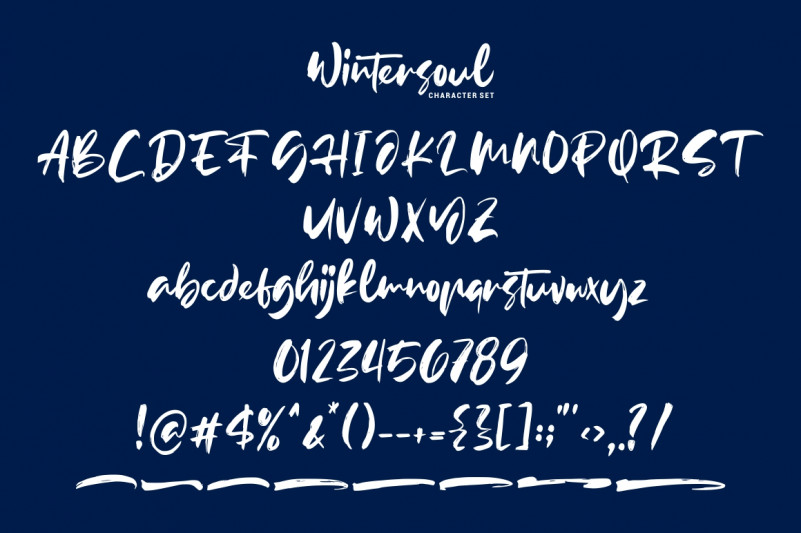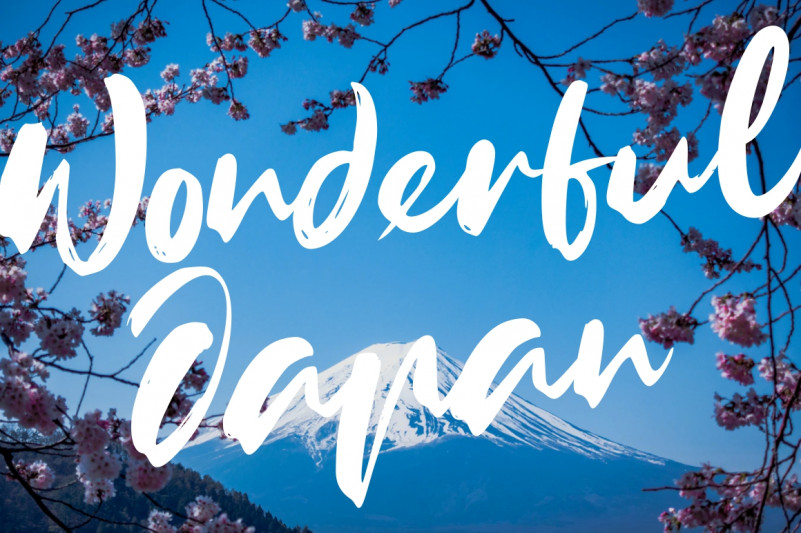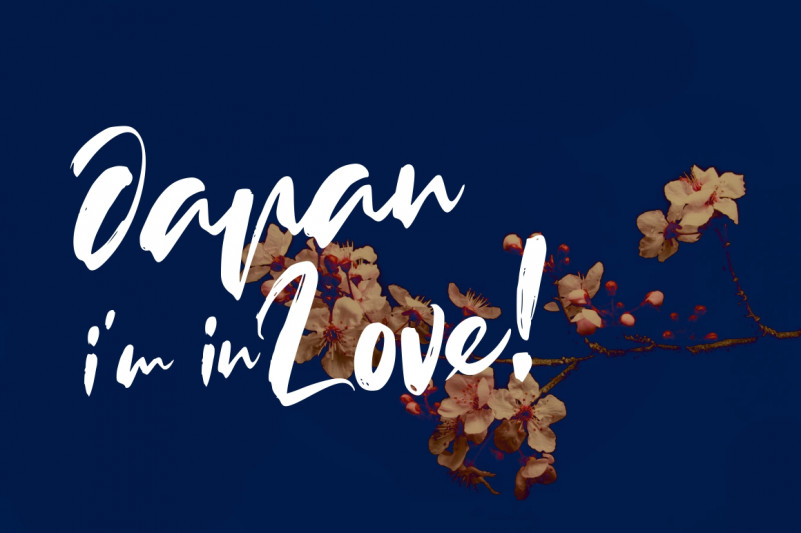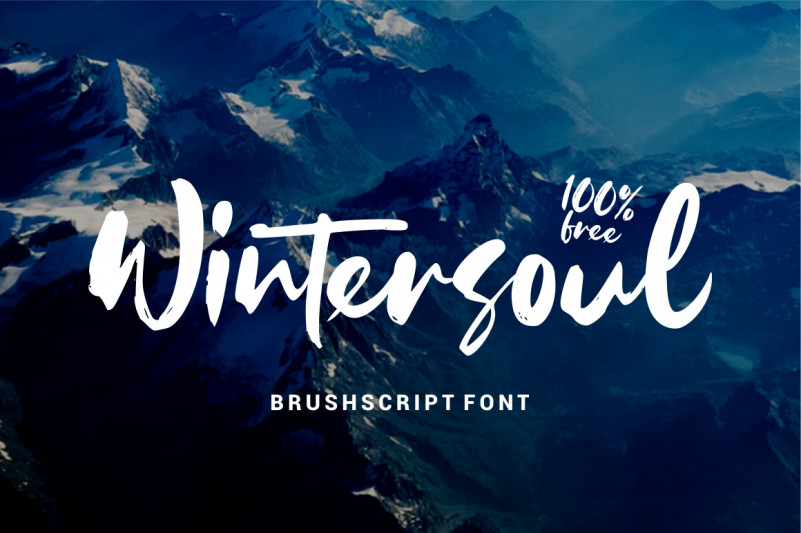
Wintersoul Brush Font
A new handbrush script font by Garisman Studio. It has a elegant, classy look, catchy, readable and cool. This font is perfect for giving your branding projects. Introducing Wintersoul Font. This font Is perfect for logo, invitation, stationery, wedding designs, social media posts, advertisements, product packaging, product designs, label, photography, watermark, special events or anything.